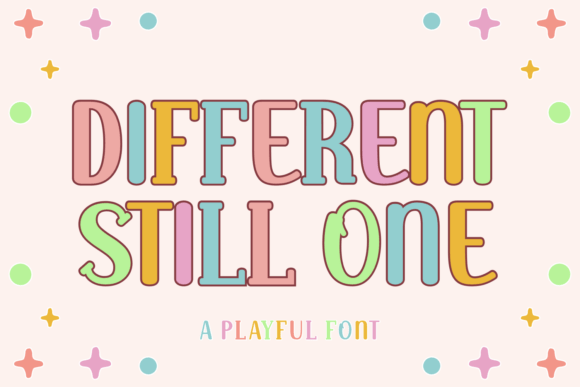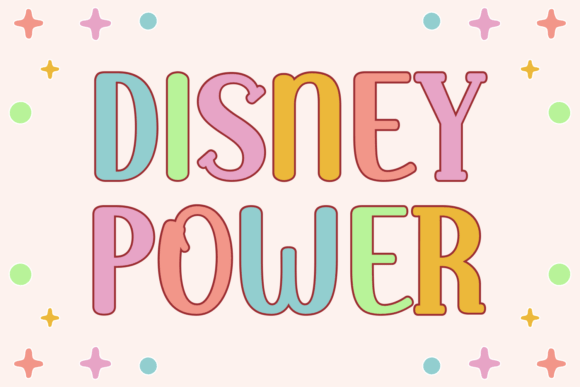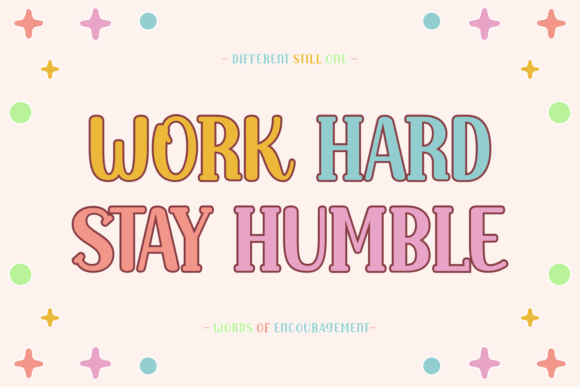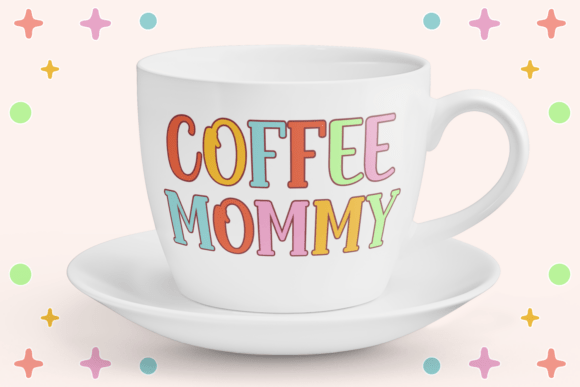
Different Still One Font
About the Different Still One Font
Welcome to the world of Different Still One Font, a typeface that will inspire your next great project. Immerse yourself in the whimsical charm of “Different Still One Display Font”. Exuding cuteness and playfulness, this handwritten style typeface boasts of multilingual accents, authentic uniqueness, and a clean aesthetics. It’s designed to lend eloquence to greeting cards and quotes, crafting an emotional connection with your readers.
With “Different Still One”, you can add personality to your product packaging, labels, and posters. It transforms every letter on mugs and takes embroidery crafts to new heights, turning simple items into pieces of art. This font also excels in logotype design, making each event unique and memorable.
As an editorial font, it breathes life into 7ntypes and web design, adding an organic touch to digital space. A wondrous choice for logos, “Different Still One” encapsulates brand identity in a stylish and refined way. Be it for merchandising or apparels, it captures attention and leaves a lasting impression.
For students, “Different Still One” bolts exciting visual cues onto education, making learning a fun journey. Celebrate typography with “Different Still One Display Font”, a stroke of genius that marries functionality with beauty.